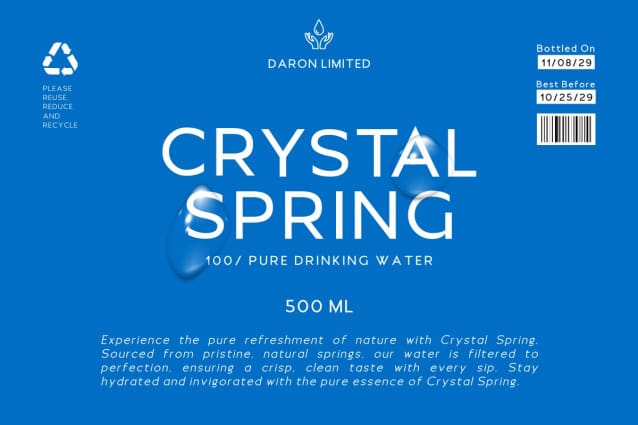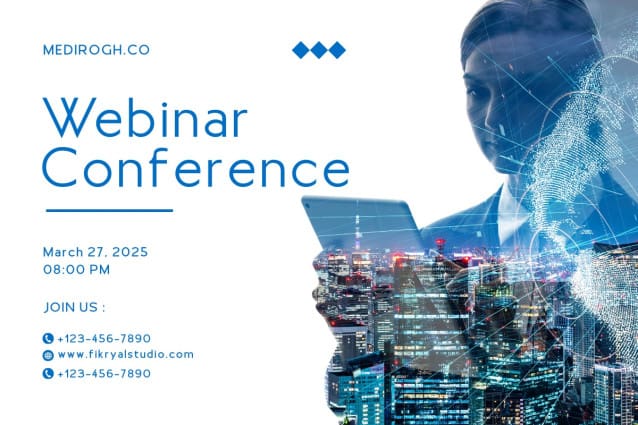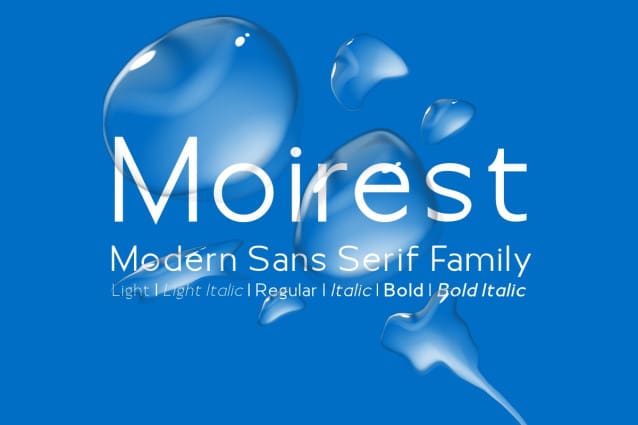
Moirest Font Family
Moirest Font Family, is a sleek and modern sans-serif font, perfect for adding a professional and clean touch to any design. Available in six versatile styles, Moierst adapts to various design needs:
Moierst Light offers a delicate and minimal style, ideal for long texts and clean design elements. Moierst Light Italic adds a soft, artistic tilt, perfect for quotes and subtle emphasis.
Moierst Regular serves as the balanced standard, suitable for main text and headlines, while Moierst Italic provides an elegant and dynamic option for adding character and style.
Moierst Bold is strong and attention-grabbing, perfect for headings and standout elements. For a combination of boldness and a dynamic slant, Moierst Bold Italic is ideal for impactful headlines.